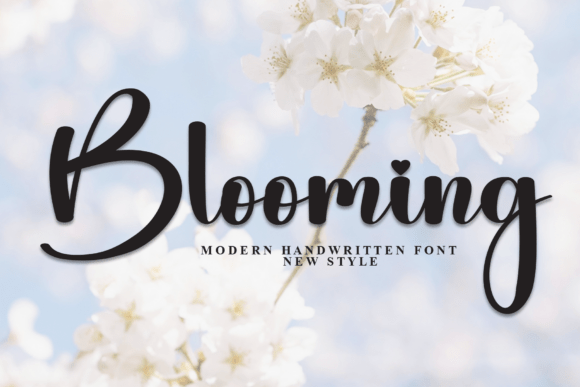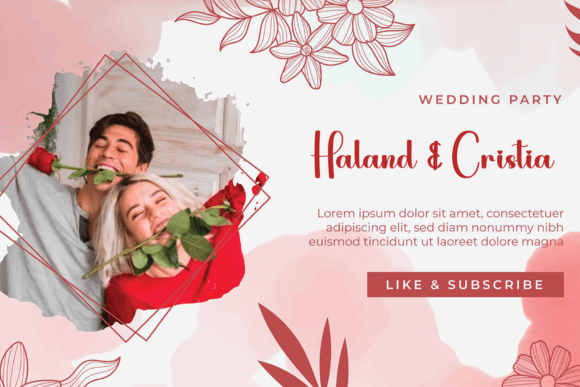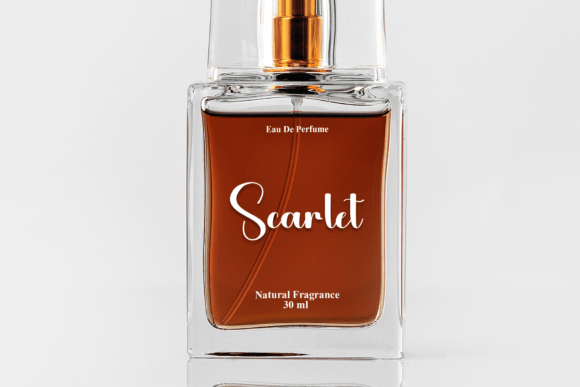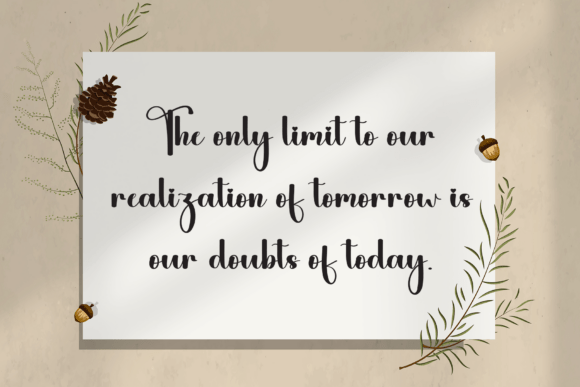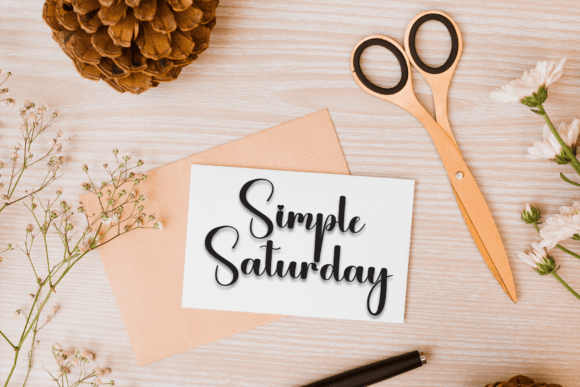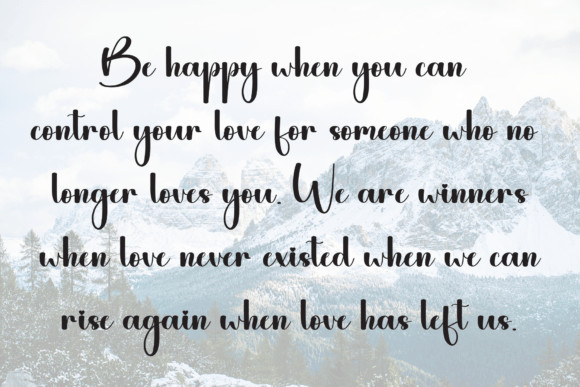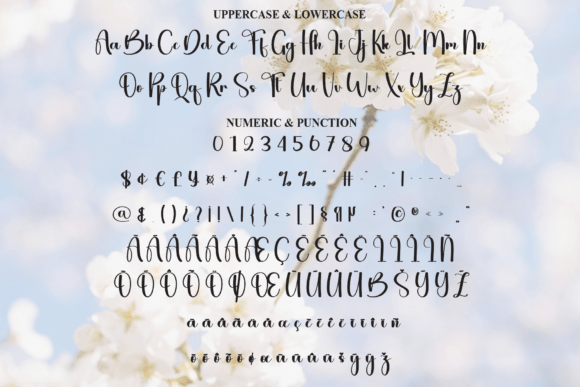
The Power of Handwritten Charm: Introducing Blooming Font
As a designer, have you ever stared at a blank canvas, trying to bring your creative vision to life? You want your design to evoke emotions, tell a story, and connect with your audience on a personal level. This is where the magic of handwritten fonts comes in – and Blooming Font is one of the most enchanting ones.
Blooming Font is a beautiful, modern script font that combines elegance and playfulness in perfect harmony. With its fluid strokes and charming curves, it adds a touch of warmth and sophistication to any design project. Whether it’s a logo, packaging, or invitation, Blooming Font helps designers create unique and memorable designs that stand out from the crowd.
Blooming Font Key Features
- Unique Characteristics: Blooming Font features a unique, hand-drawn design with intricate details and subtle textures, giving it a distinctive and elegant appearance.
- Character Set: The font includes a comprehensive character set, covering Latin, Cyrillic, and Greek alphabets, as well as a range of punctuation marks and symbols.
Blooming Font Review
I recently had the chance to work with Blooming Font, and I have to say it’s been a mixed bag for me. Here are my thoughts on what works well and what doesn’t.
- The design is undeniably beautiful, with intricate details and a playful touch.
- The font is highly customizable, with a wide range of color options and adjustable size settings.
- The blooming effect is a nice touch, adding a sense of movement and energy to the design.
- The font can be quite overwhelming at larger sizes, with the details getting lost in the process.
- The customization options can be a bit too granular, making it difficult to find the perfect balance.
- The blooming effect can be distracting if not used carefully, taking away from the overall message.
While Blooming Font has some great qualities, it’s not without its limitations. With careful use and attention to detail, it can be a beautiful addition to any design. However, I wouldn’t recommend it for projects where simplicity and clarity are key.
Blooming Font is ideal for:
- Floral-themed designs and illustrations
- Creative typography and design elements
- Brand identity and logos